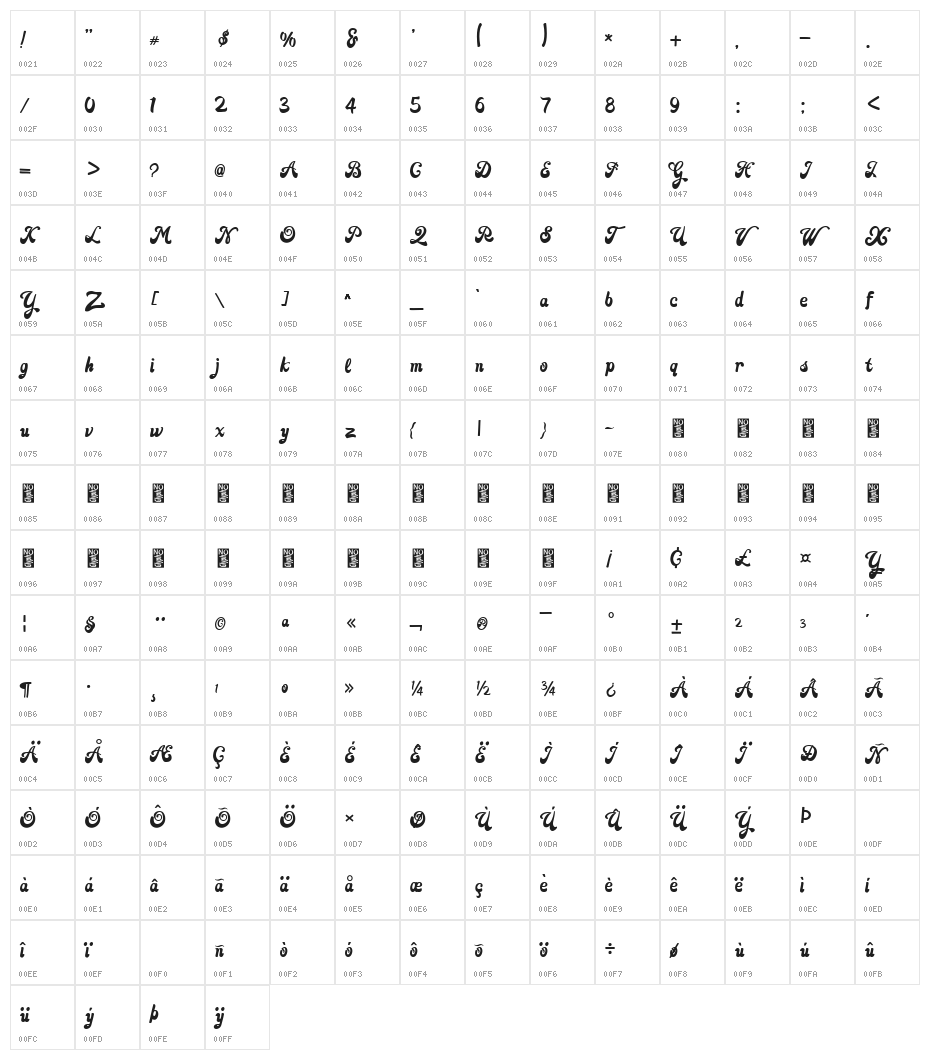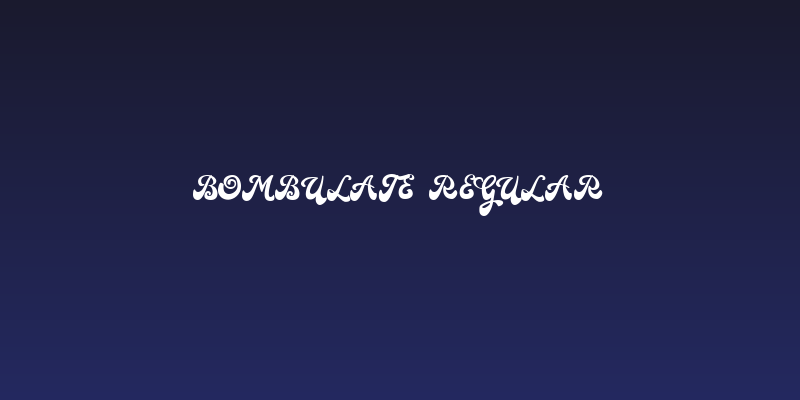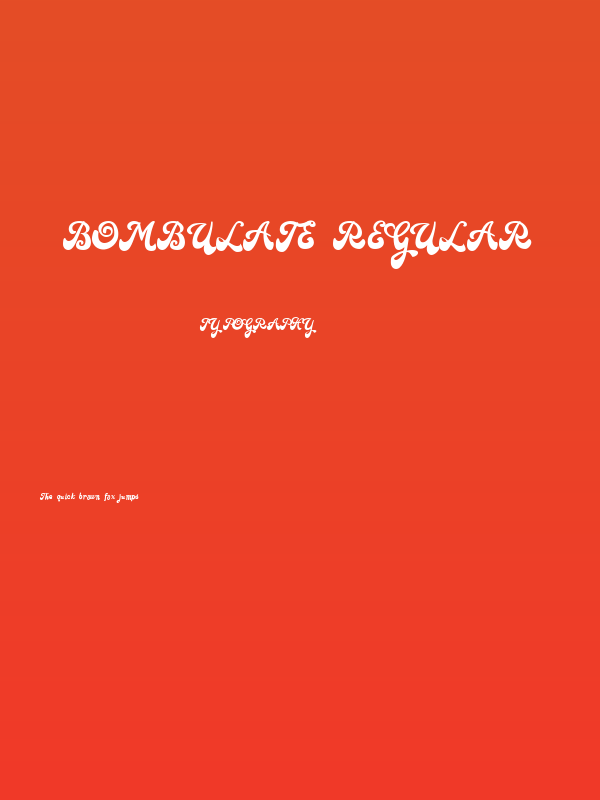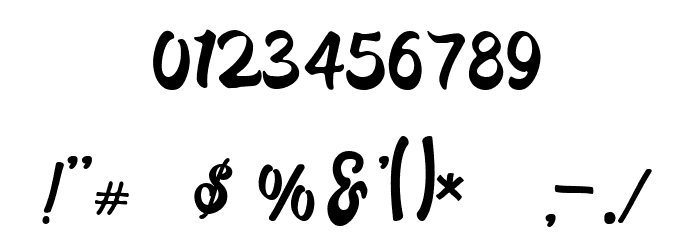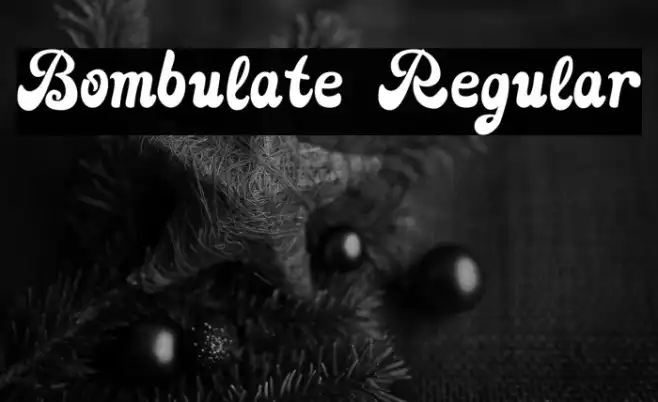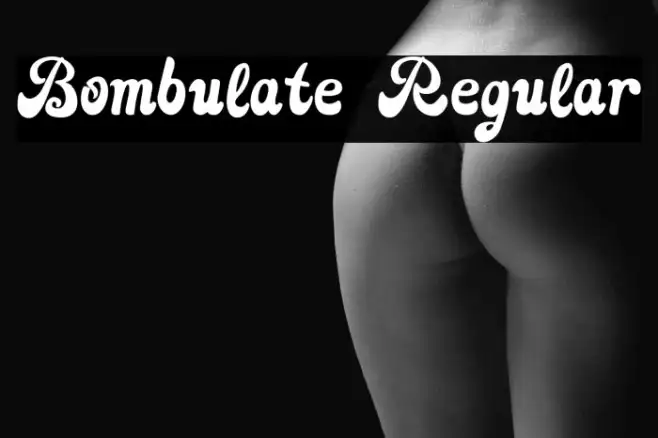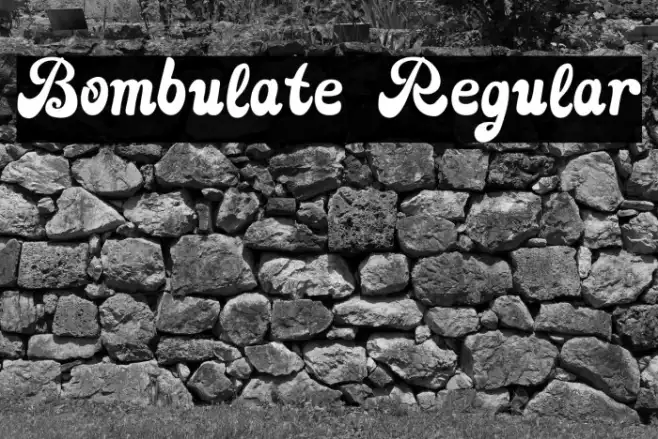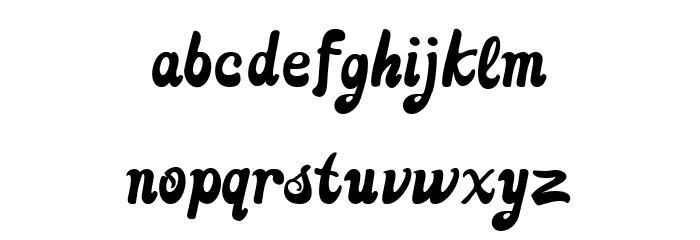
Bombulate Regular Font
Bombulate Regular Description
This font features a bold and playful script style with a distinctively whimsical flair. The characters are interconnected with smooth, flowing curves, giving it a lively and dynamic appearance. The uppercase letters are particularly ornate, with exaggerated loops and swirls that add a touch of elegance and fun. The lowercase letters maintain a consistent style, complementing the uppercase with their rounded forms and gentle slopes. The numerals are equally stylized, ensuring a cohesive look across all characters. Special characters are designed to match the overall aesthetic, making this font suitable for creative and expressive designs.
| Proposed Projects | Ideal for greeting cards, invitations, playful branding, and decorative posters. |